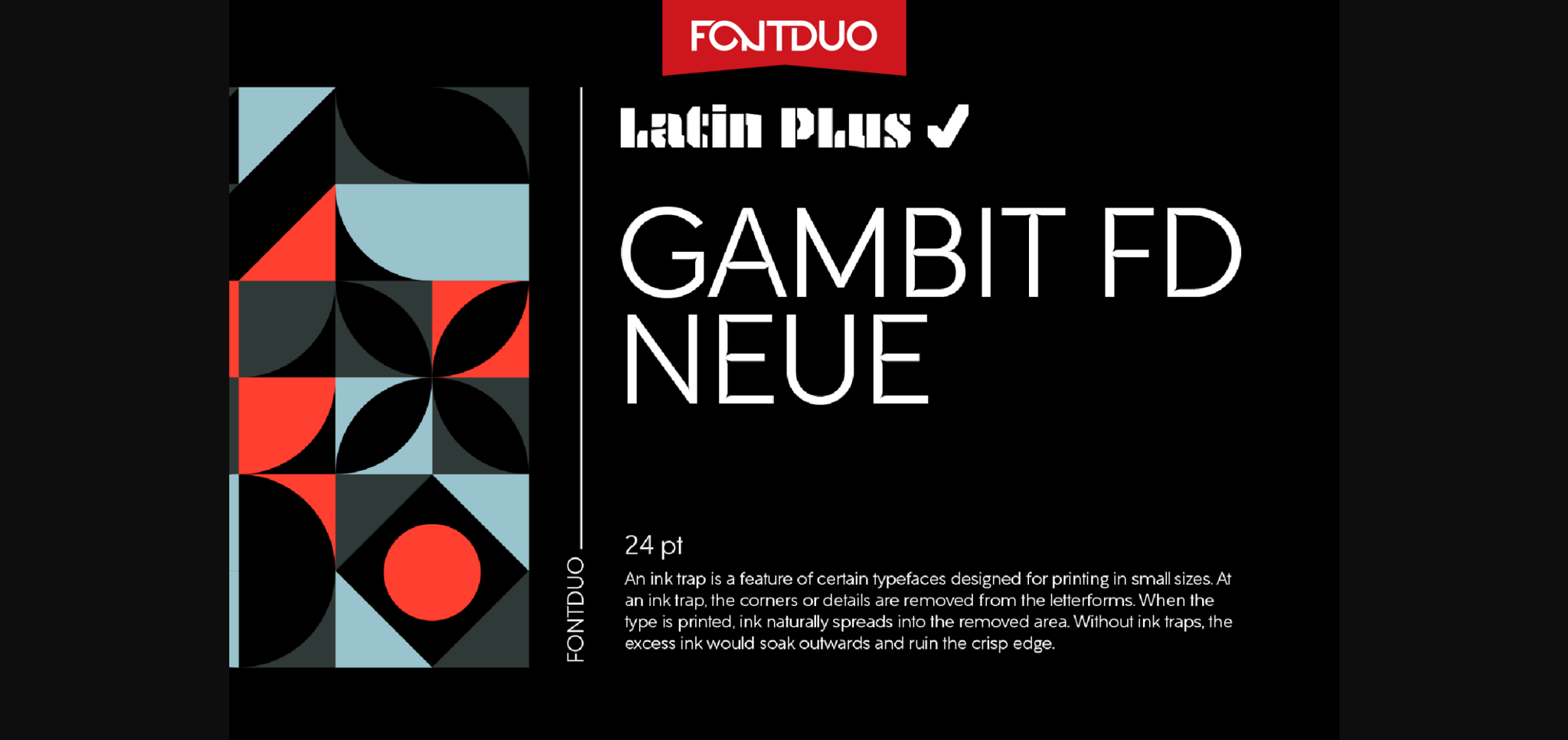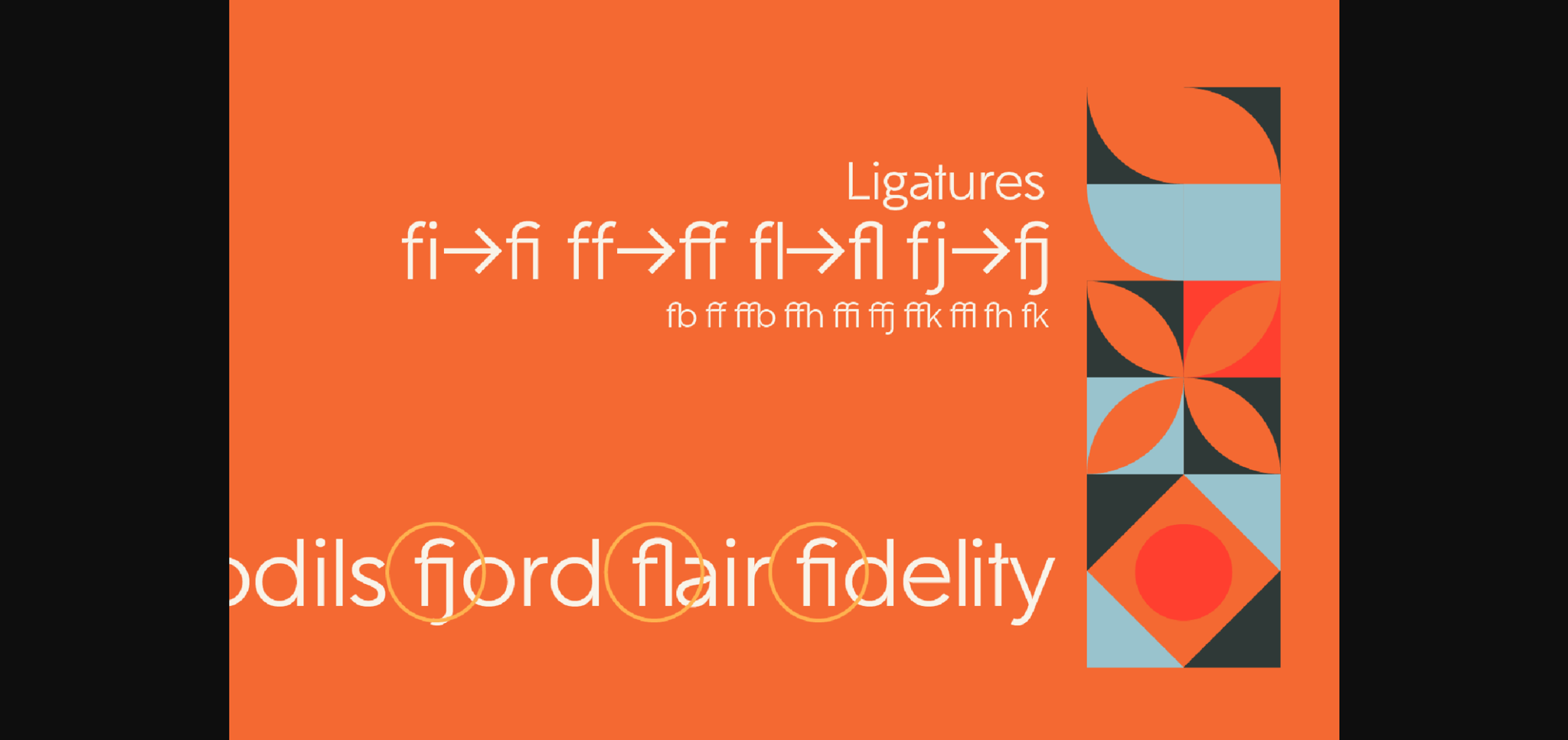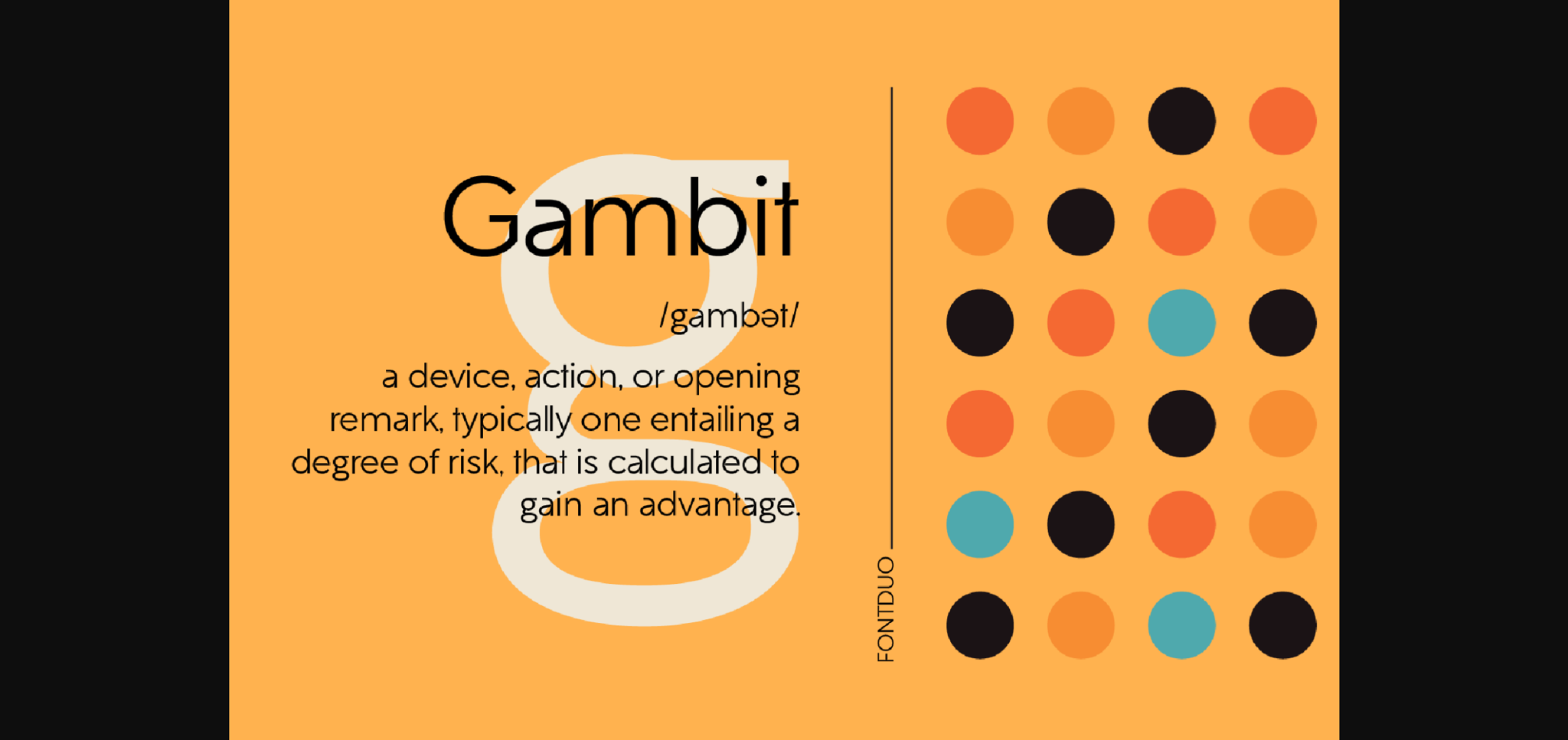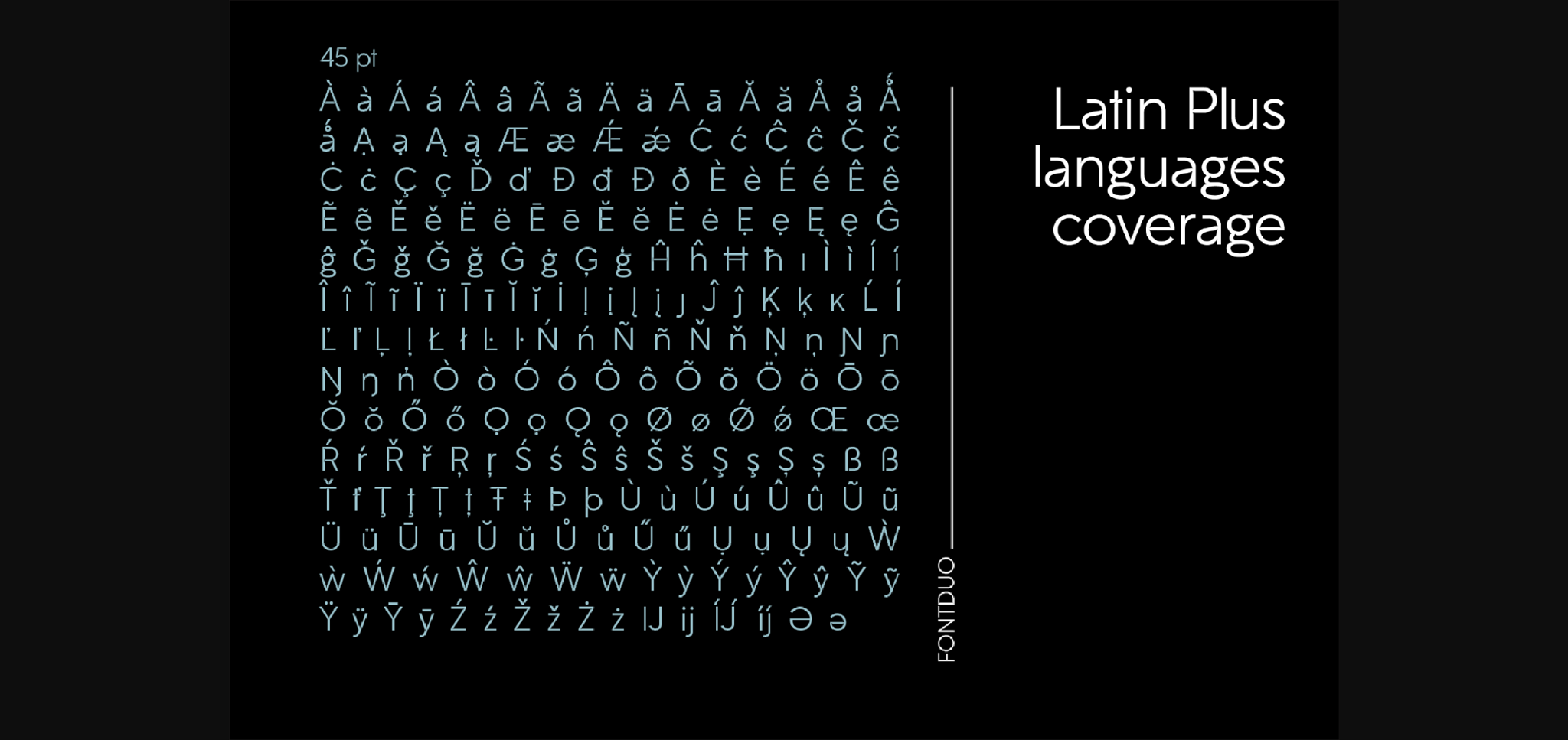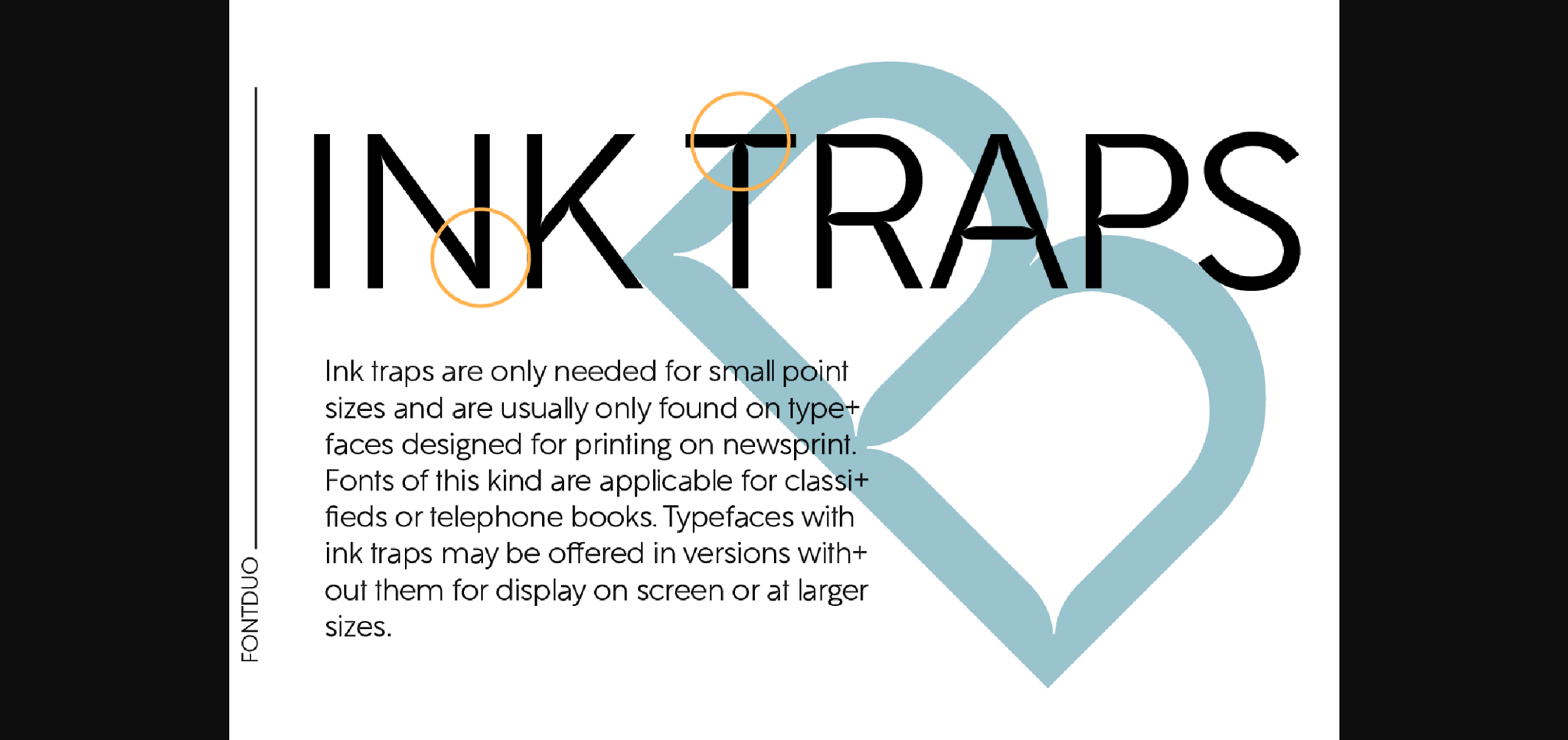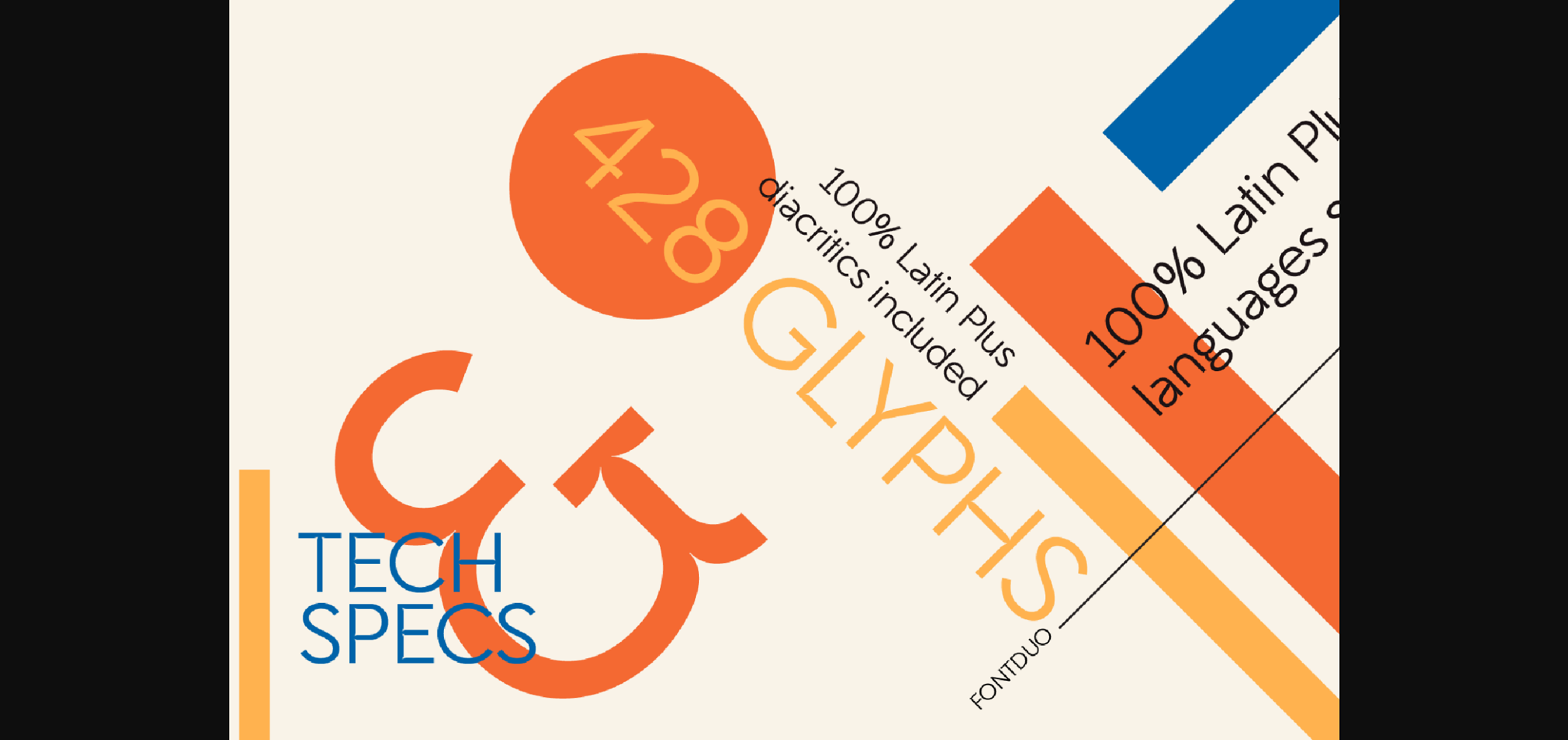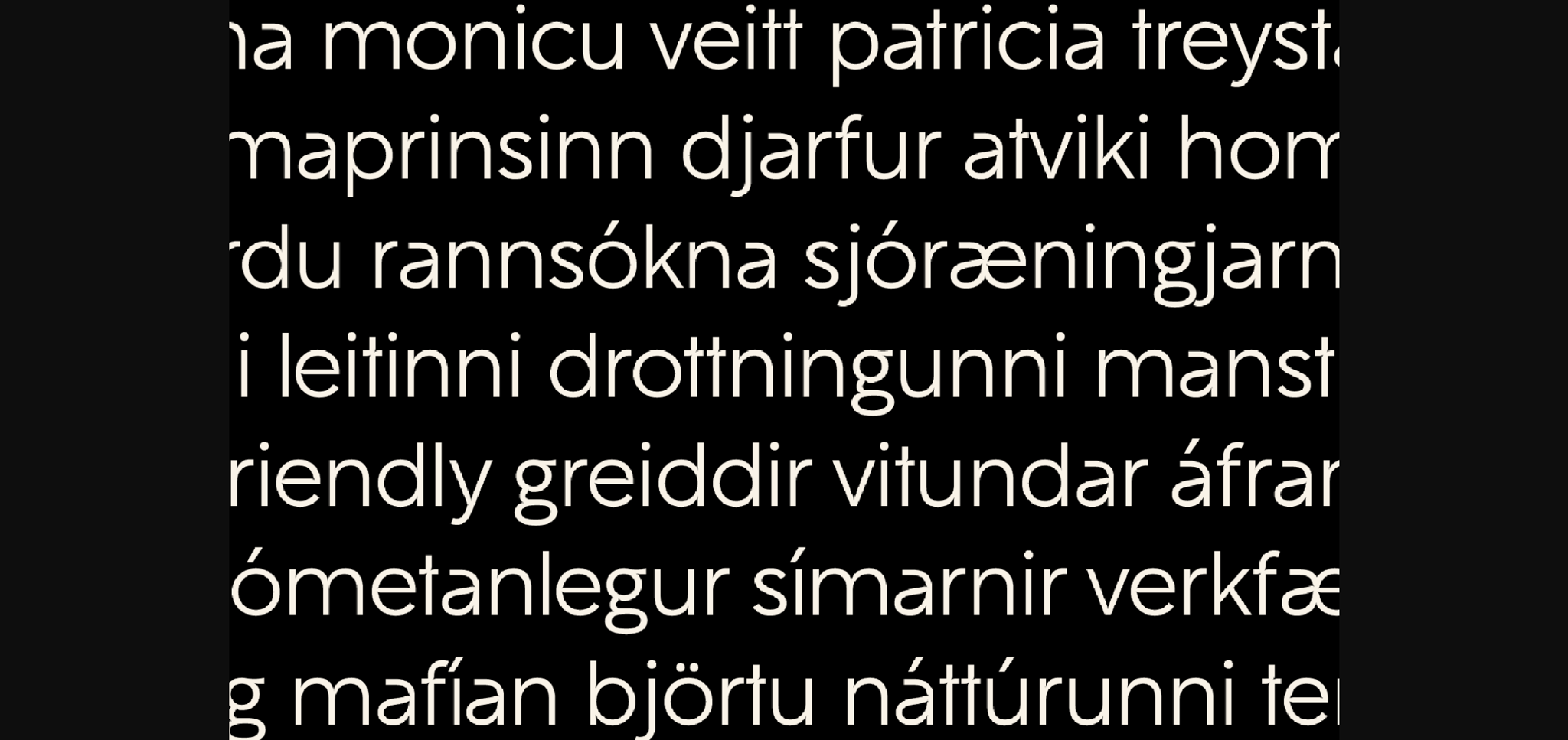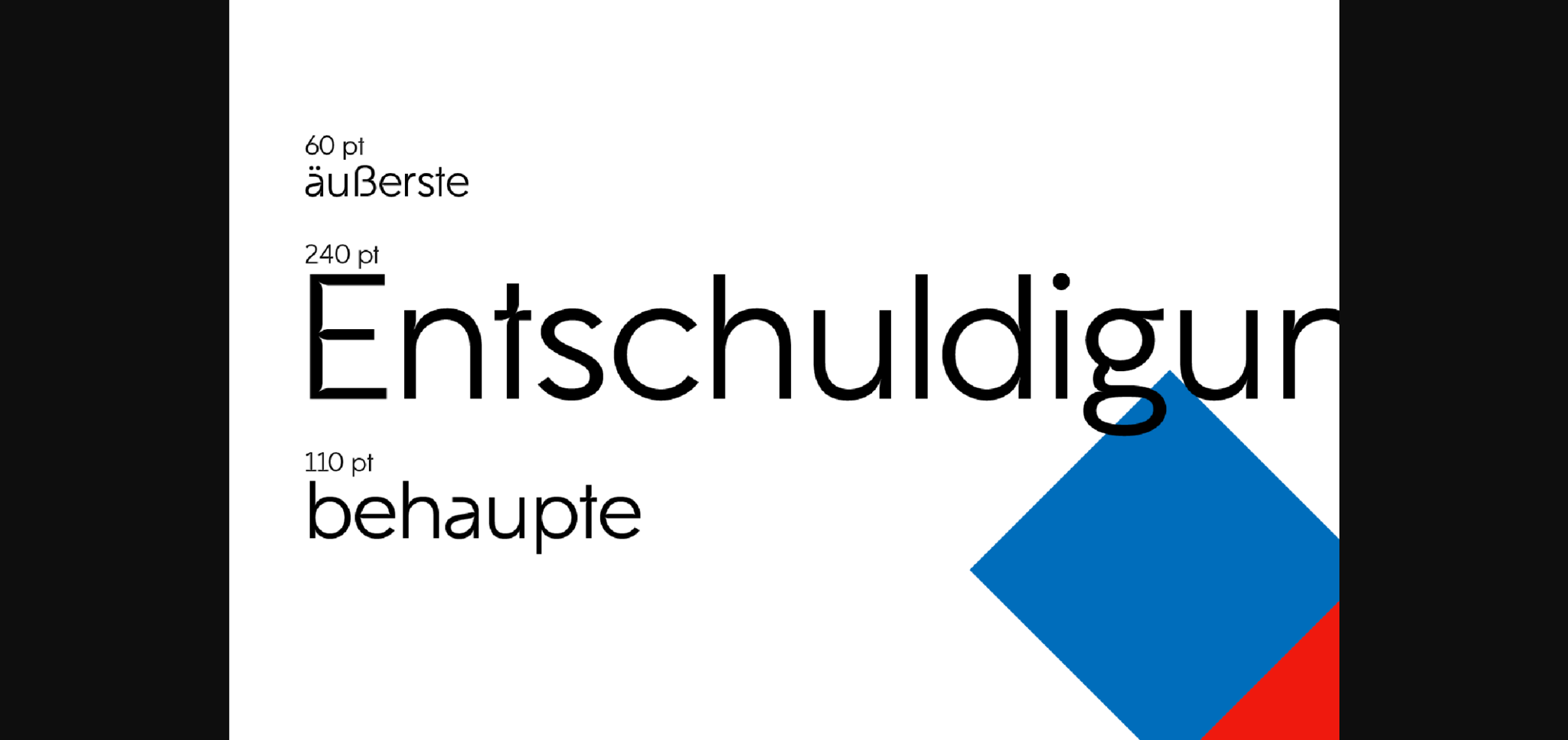
HomeSans Serif FontsGambit Fd Neue Font Sans Serif Fonts Gambit Fd Neue Font FacebookXPinterestWhatsApp 1 of 11 ... Gambit Fd Neue Font Poster 2... Gambit Fd Neue Font Poster 3... Gambit Fd Neue Font Poster 4... Gambit Fd Neue Font Poster 5... Gambit Fd Neue Font Poster 6... Gambit Fd Neue Font Poster 7... Gambit Fd Neue Font Poster 8... Gambit Fd Neue Font Poster 9... Gambit Fd Neue Font Poster 10... Gambit Fd Neue Font Poster 11... About Gambit Fd Neue Font Gambit FD Neue is a classic, geometric sans serif font. Incredibly versatile, this font will suit a wide pool of design ideas. DOWNLOAD NOW People also explored Goofers Script Font Winter Sounds Font I Love January Font Pink Blossom Font Betteryou Font Mettafora Font Alakas Font Arizona Font Emixvade Font 577 0 TagsGambit Fd Neue Font Previous articleStylish Headline FontNext articleGradient Font LEAVE A REPLY Cancel reply Comment: Please enter your comment! Name:* Please enter your name here Email:* You have entered an incorrect email address! Please enter your email address here Website: Save my name, email, and website in this browser for the next time I comment. Personal Use Free Kellana Personal Use Free Read more about this font Xplor Personal Use Free Read more about this font Calega Personal Use Free Read more about this font Authurium Personal Use Free Read more about this font BLOG How to Cut Any Font on Cricut: Convert a Font to SVG (Free) Turn any font into a clean SVG so it cuts crisp on Cricut - a quick 3-step workflow using a free font-to-SVG tool. Elegant Wedding Invitation Fonts – Handwritten & Script Fonts Free Fonts Risk: Why Free Fonts Can Be Dangerous for Designers Transform Your Website: Elevate Your Typography with 7 Best Web Font Generators